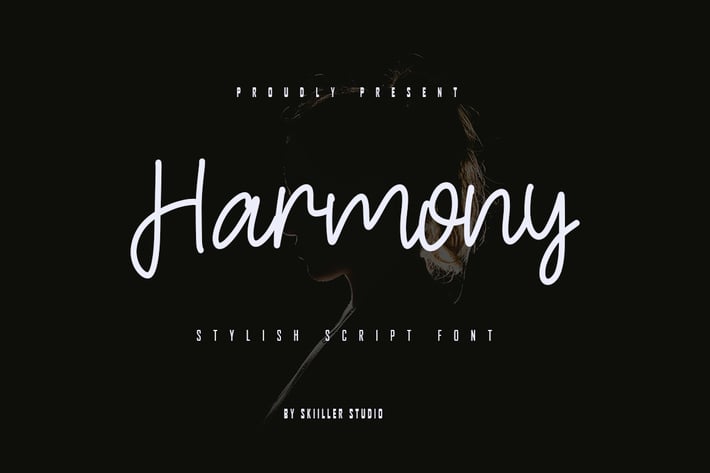
Harmony - Stylish Script Font
Harmony is a Monoline scrpt font, crafted to give your headlines and logotype projects a stylish touch. This font reads as strong, confident, and dynamic and can add tons of urban character to your designs.